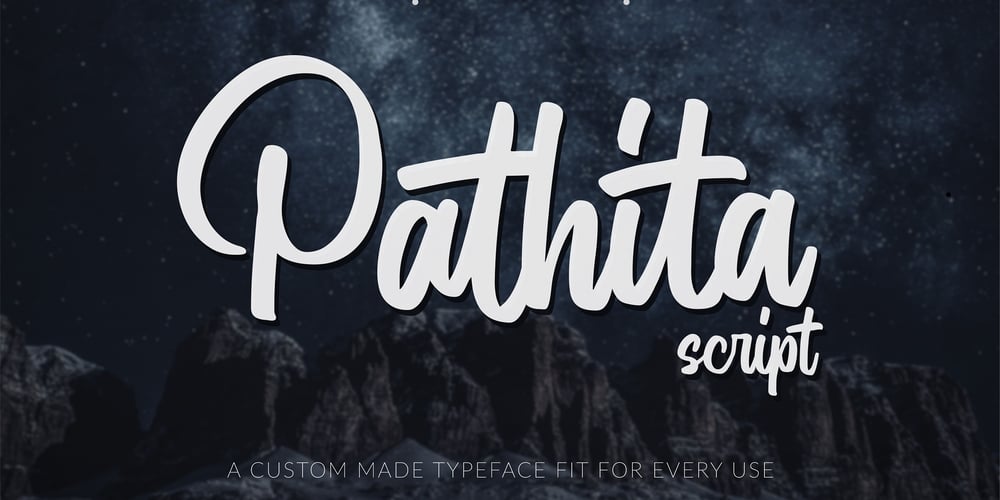
Pathita Script Font Family was designed by Heri Imanudin and published by Krafted. Pathita Script contains 1 styles and family package options. Everything has beauty, but not everyone sees it – ConfuciusFully realize your boldness and show your lavish side with the Pathita Script. The Pathita Script will be the perfect addition to aid you in your journey to be who you really are. Let the world see you and your beauty, bring it out through your handiwork and give your viewers a new perspective!